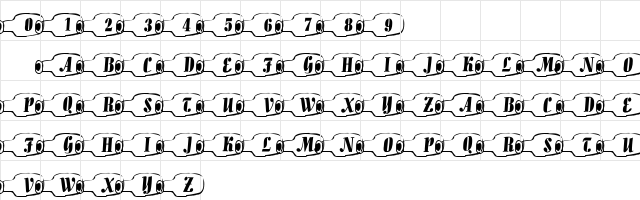
Complete 101! Message in a Bottle Regular glyph index. Displaying only characters natively supported by 101! Message in a Bottle Regular font.
101! Message in a Bottle is a composed and adaptable typeface that performs quietly and consistently across a wide range of design contexts.